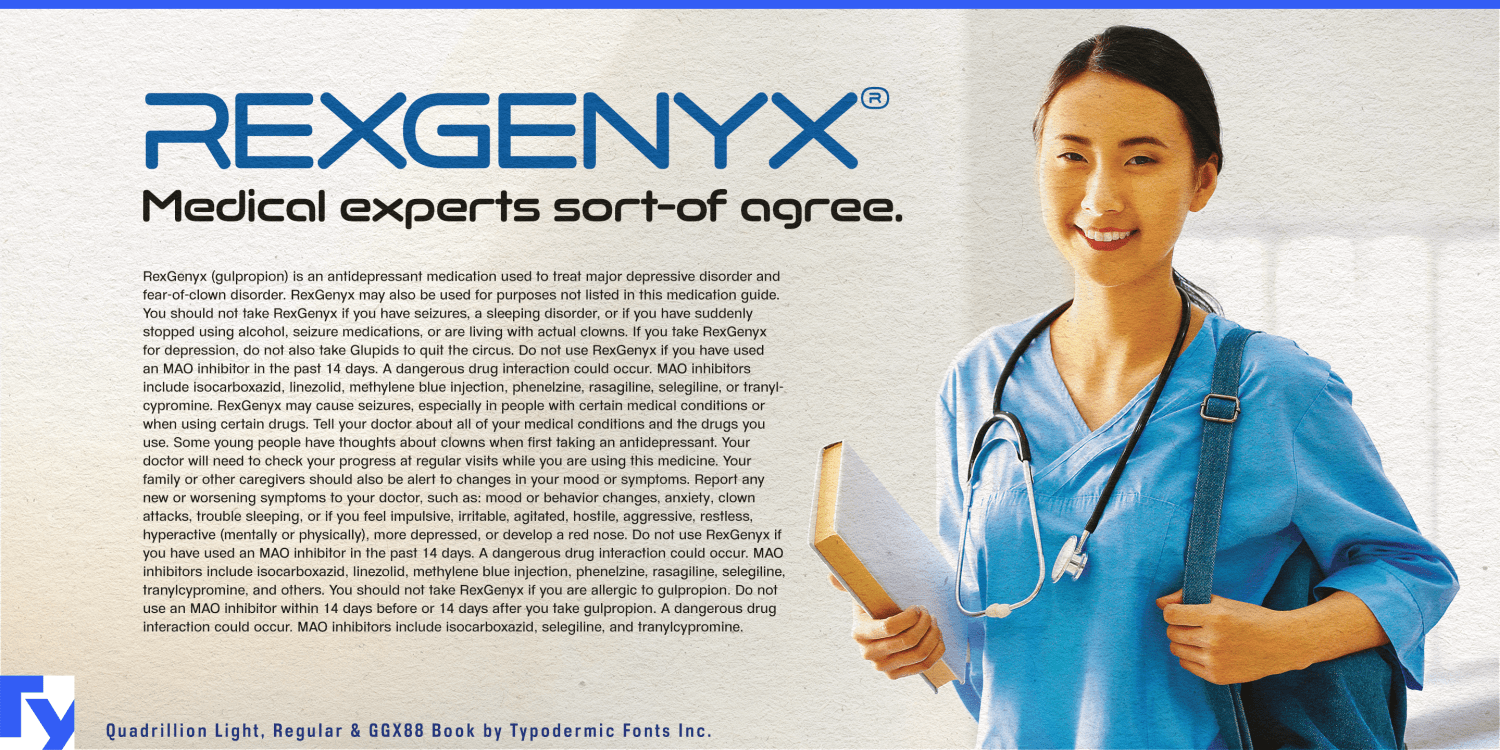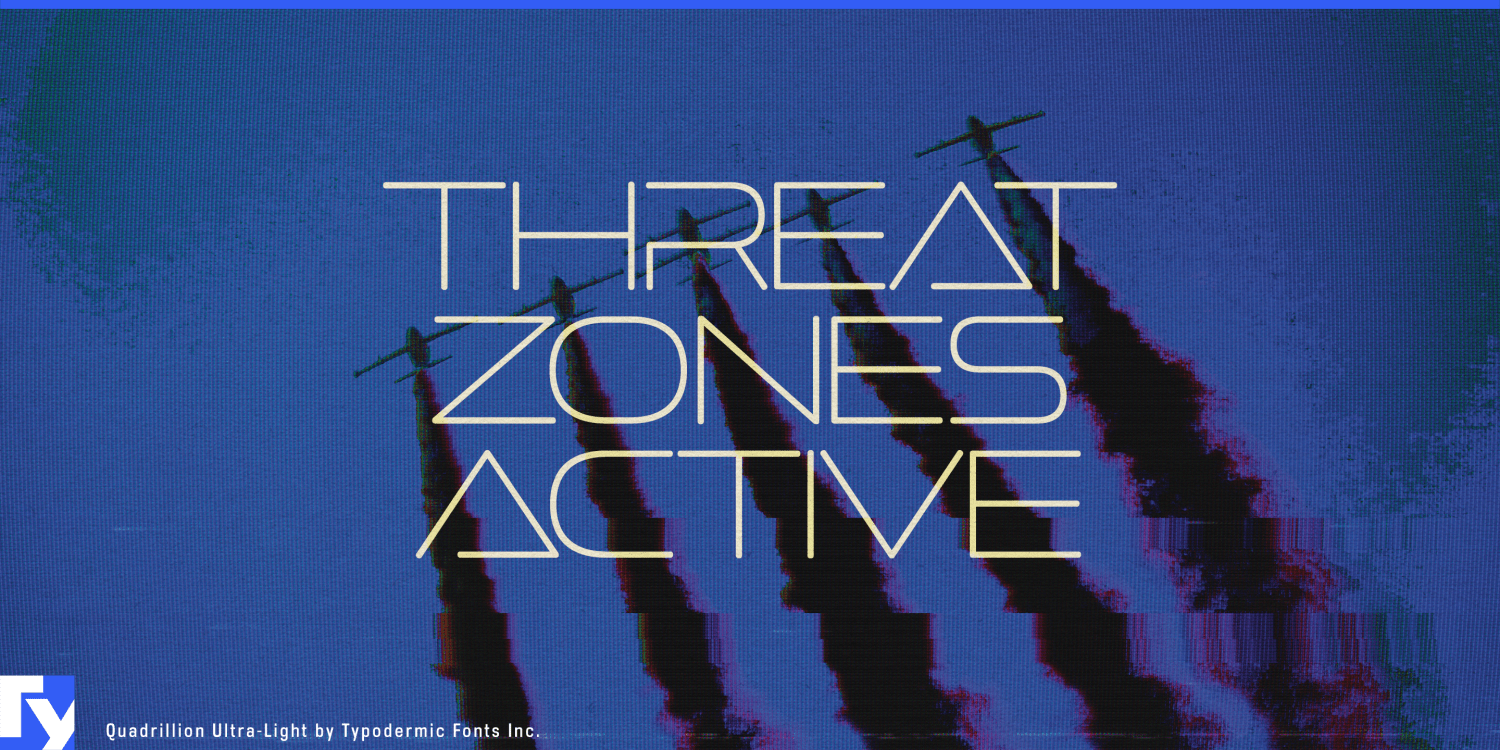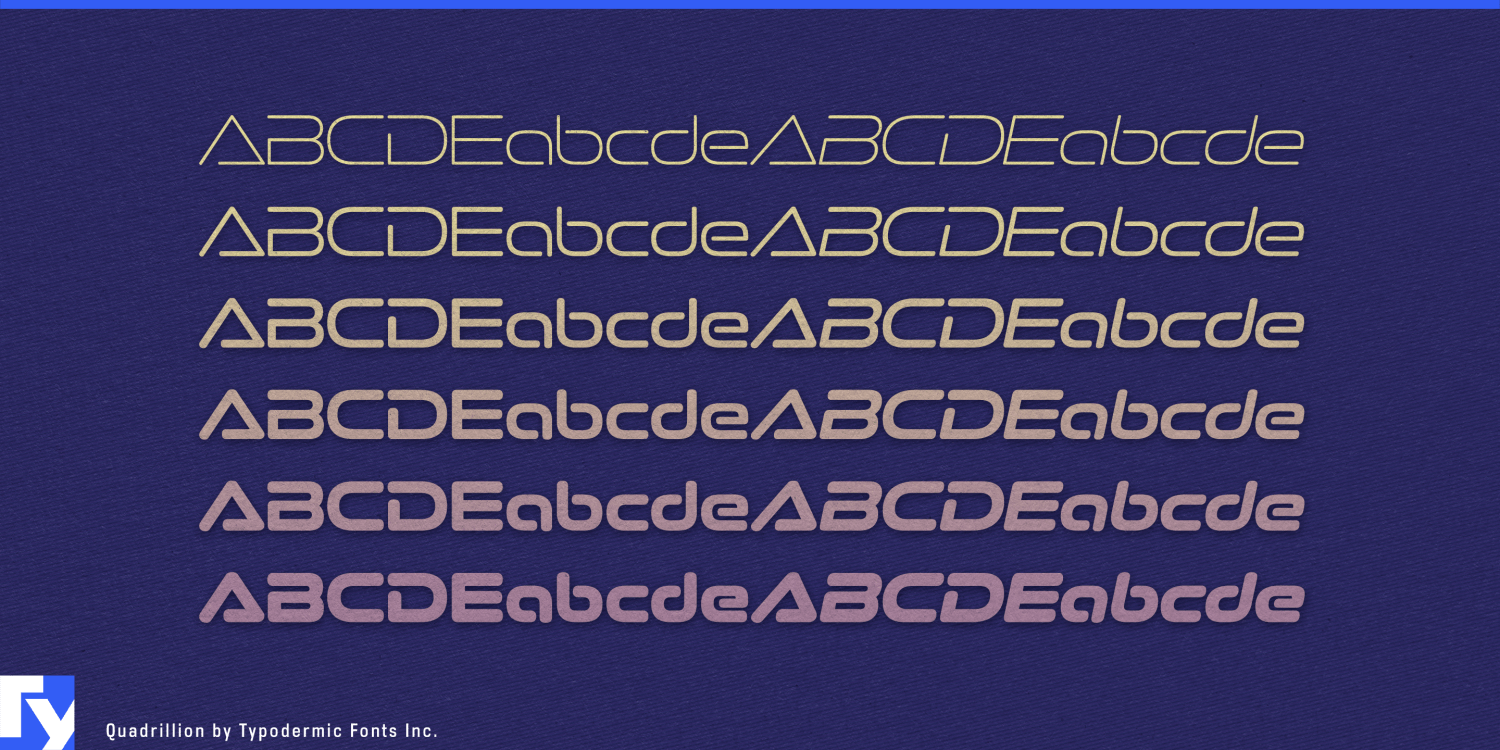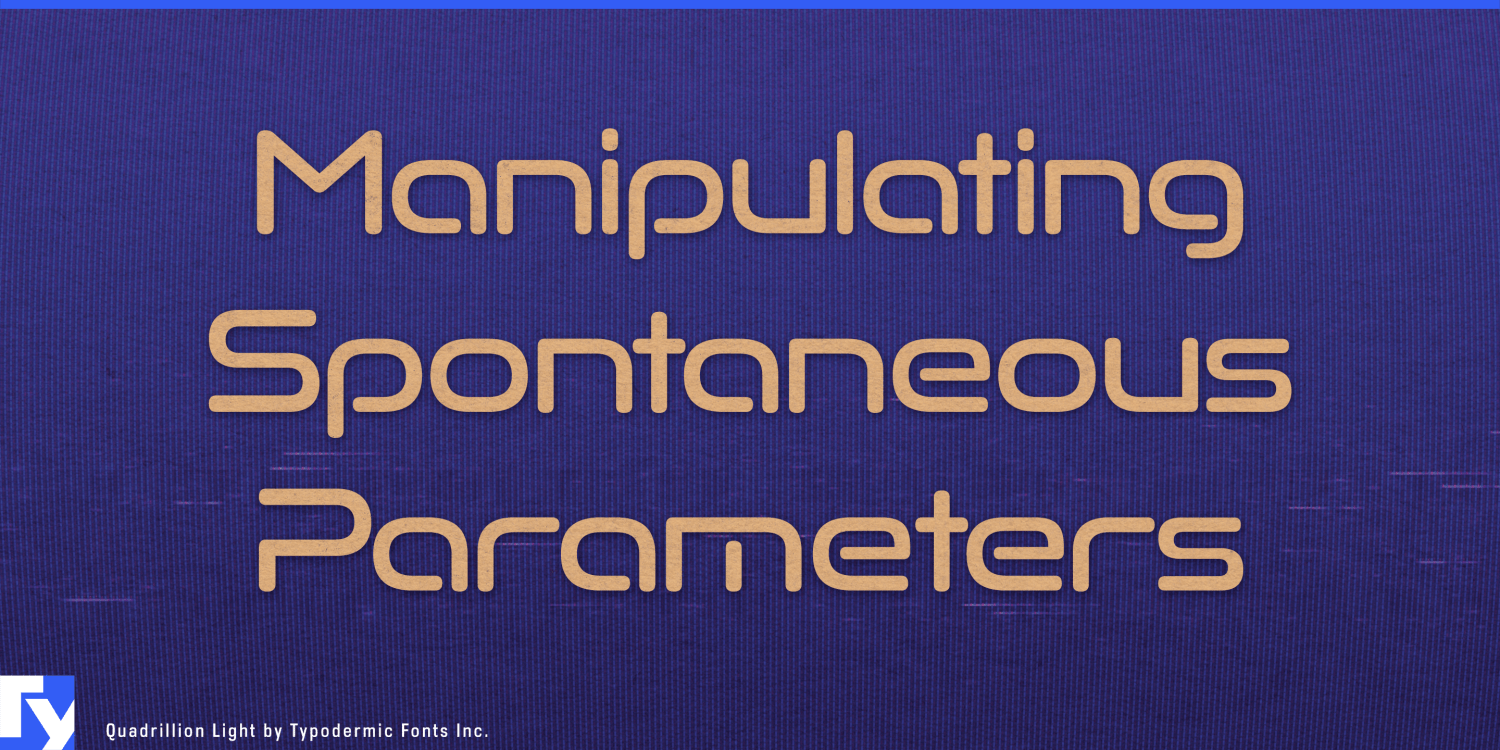
About Quadrillion
Venture into the future of typography with Quadrillion, a typeface that pushes the boundaries of design. Building upon the legacy of Ethnocentric, Quadrillion elevates the concept with enhanced curves, precise geometry, and a distinctively wide stance.…